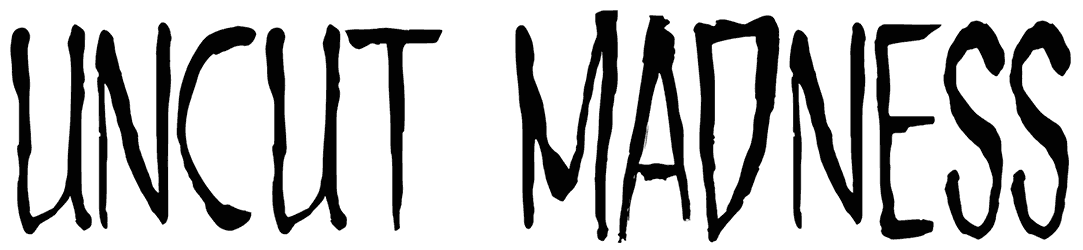
Uncut Madness Font
Uncut Madness is an incredible horror font that makes your audience stare. This spooky font has a dark style and can help you in several situations. For instance, you may use it in posters, video games, and movie titles;…
Uncut Madness is an incredible horror font that makes your audience stare. This spooky font has a dark style and can help you in several situations.
For instance, you may use it in posters, video games, and movie titles; however, it does not support lowercase letters and symbols. This scary font’s letters are constructed of thin and distorted lines, creating a frightening feeling, so download it now to give the viewers a new experience.
“Uncut Madness” is a horror genre font, inspired by vintage movie posters, books and vinyl covers.